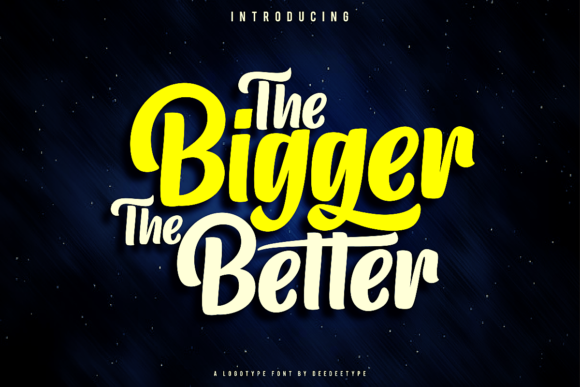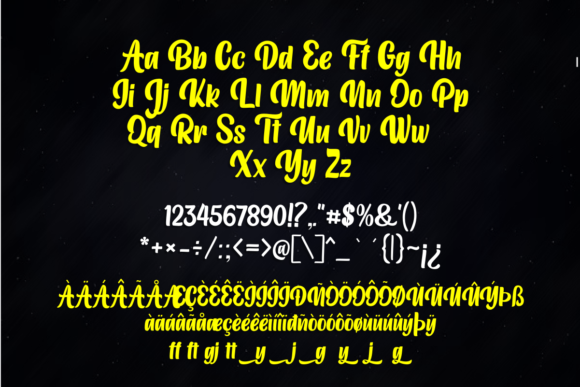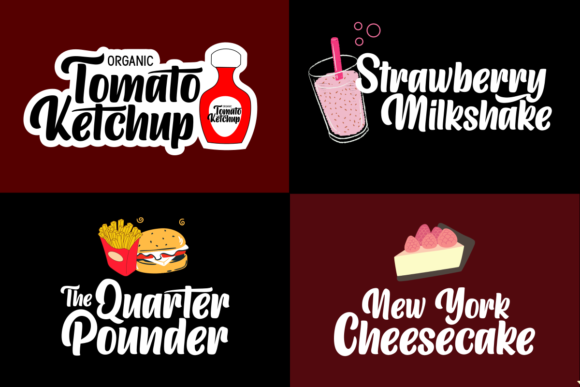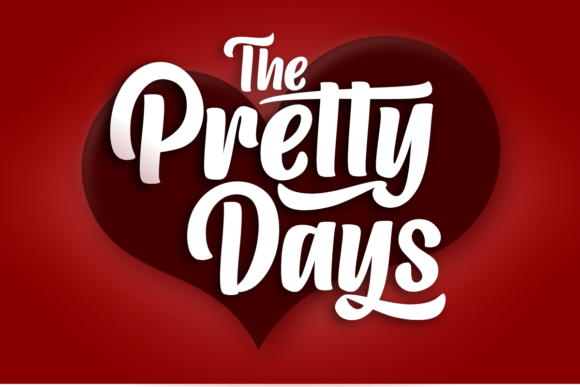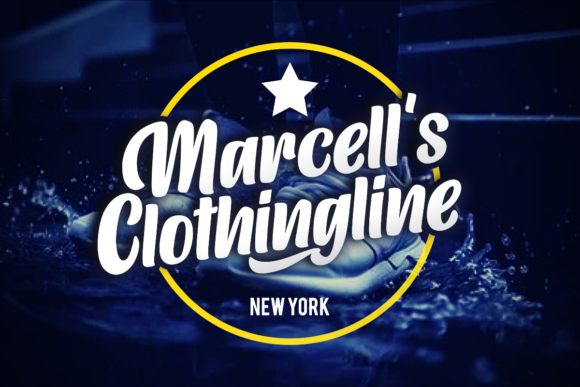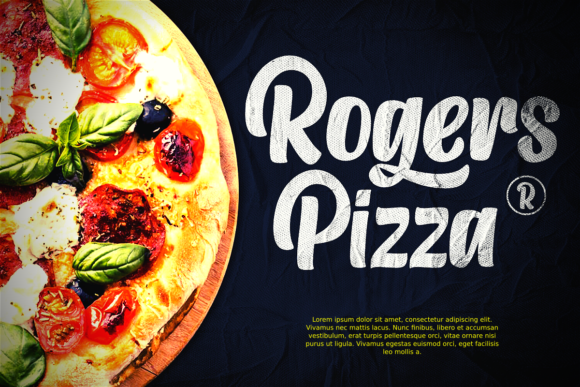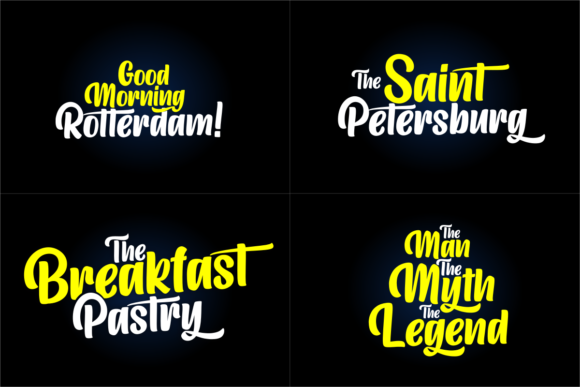
The Bigger the Better Font
About The Bigger the Better Font
The Bigger the Better is a modern and eye catching handwritten font. Clean and a little bit quirky, this font is the perfect fit for all of your logos, branding, social media, and crafty DIY projects.